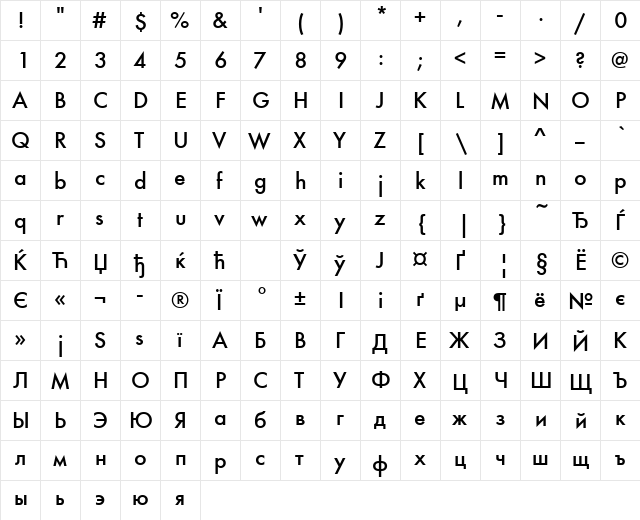
FuturaMediumCTT Normal
Design Context for FuturaMediumCTT Typeface
FuturaMediumCTT has a distinctly futuristic character, with geometric precision and clean angles that feel at home in technology, gaming, and sci-fi contexts.